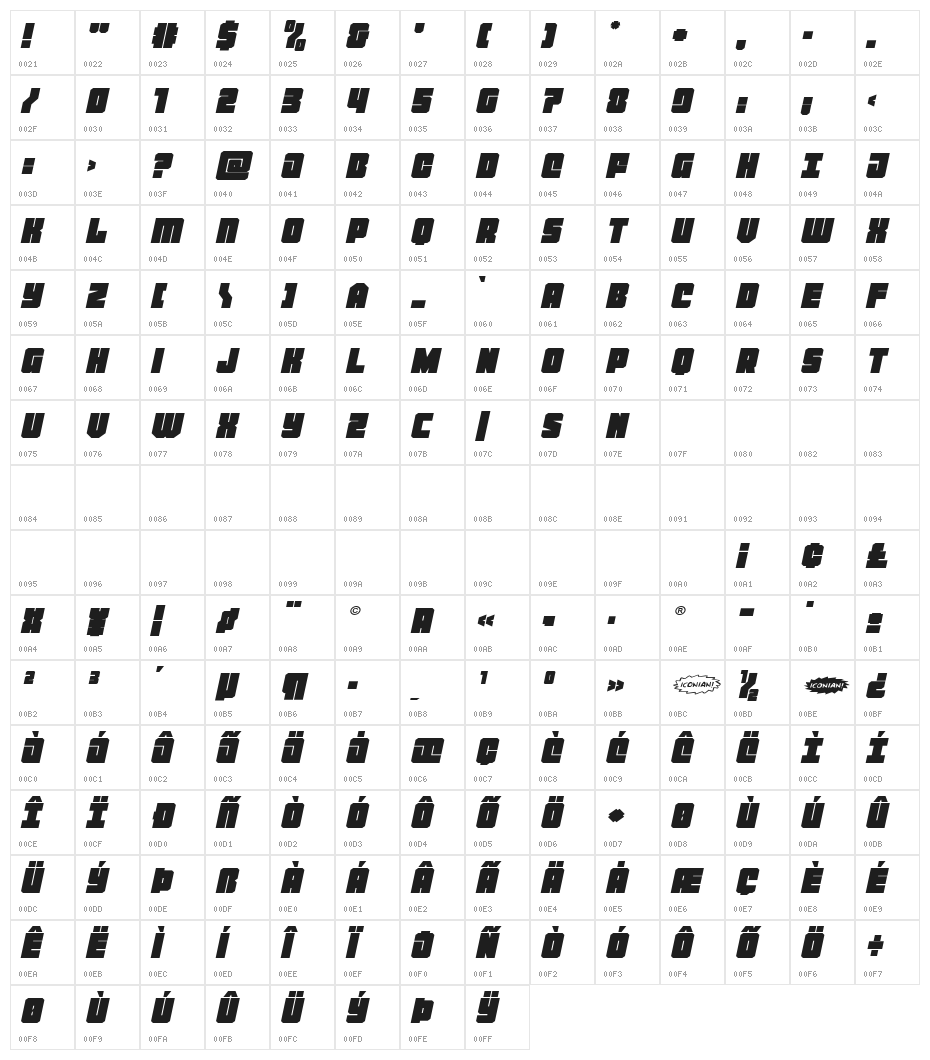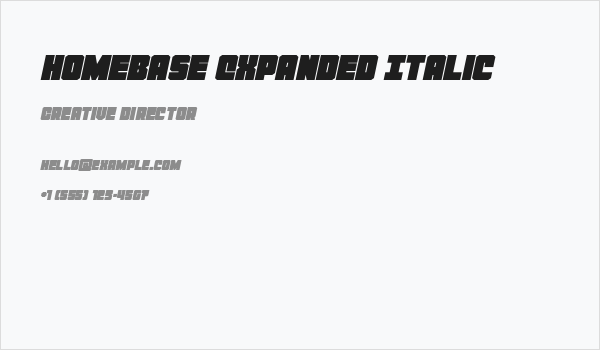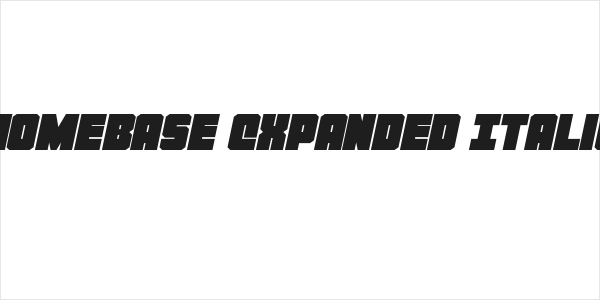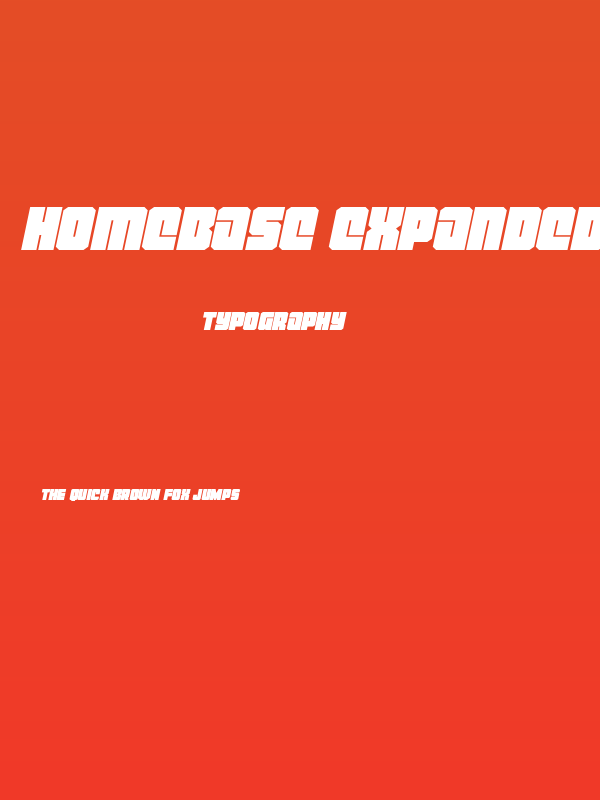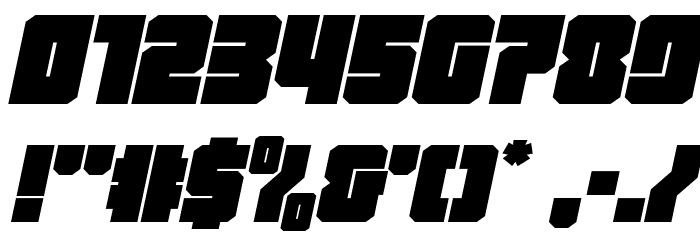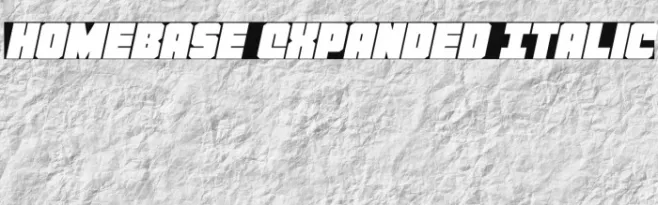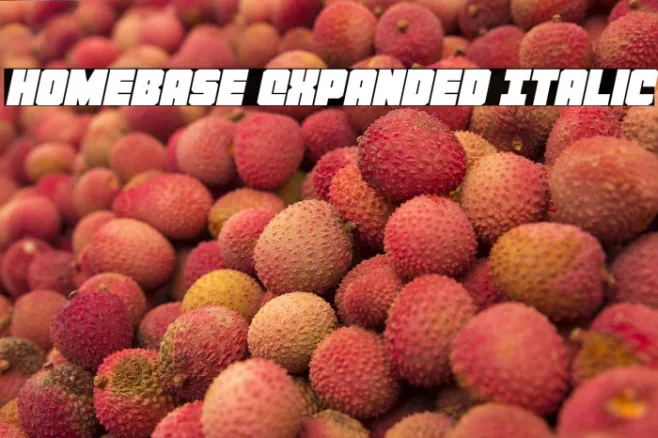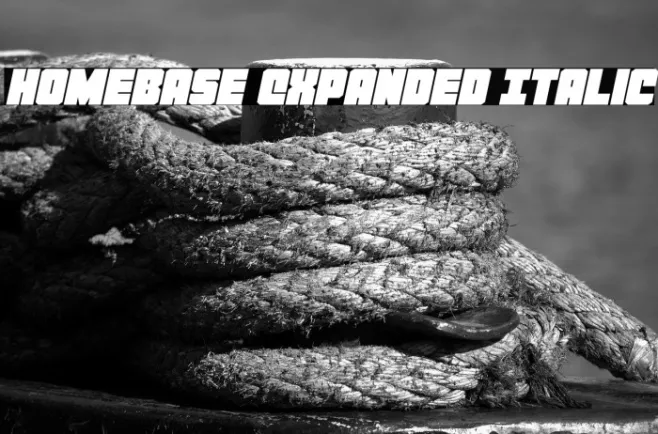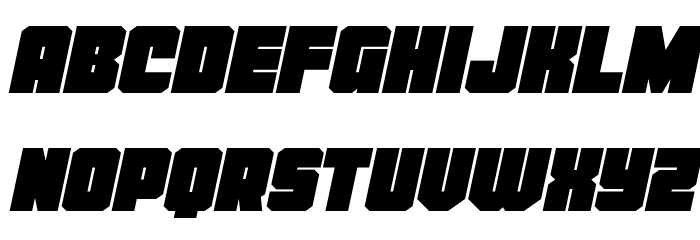
Homebase Expanded Italic Font
Homebase Expanded Italic Description
This font features a bold and dynamic design with an italicized slant, giving it a sense of motion and energy. The characters are expanded and have a blocky, geometric style, making them highly visible and impactful. The uppercase and lowercase letters maintain a consistent weight, contributing to a cohesive appearance. The numbers and special characters follow the same bold and angular design, ensuring uniformity across all elements. The font's strong presence makes it suitable for attention-grabbing applications.